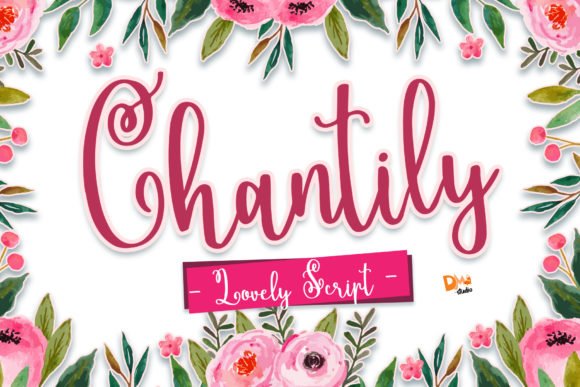
Unleash the Charm of Chantily Font
Have you ever found yourself staring at a blank canvas, waiting for that perfect spark of creativity to strike? For many designers, it’s those moments of inspiration that make all the difference between a good design and a truly exceptional one. And for me, that spark often comes from discovering a new font that perfectly captures the essence of my vision.
Enter Chantily Font, a tall and elegant handwritten font that’s sure to add a touch of whimsy and charm to any design project. Whether you’re working on a wedding invitation, a children’s book, or a lifestyle blog, Chantily Font is the perfect choice for designers who want to create a truly unique and captivating visual experience. With its flowing lines and beautiful curves, Chantily Font is a valuable addition to any designer’s toolkit.
Chantily Font Key Features
- Font Family: Chantily Font
- Unique Characteristics: Elegant, cursive script with a touch of vintage flair, ideal for creative and artistic projects, wedding invitations, and formal events.
Chantily Font Review
Overall, I’d say the Chantily Font is a solid choice for your next design project, especially if you’re aiming for a whimsical or vintage feel. Here’s what I love about it: ✨
- Unique character set: Chantily Font features a wide range of unique characters, from swashes to ligatures, that can add a touch of personality to your designs.
- Historical charm: The font’s vintage aesthetic can evoke a sense of nostalgia and elegance, making it perfect for projects that require a classic feel.
- Customization options: The font offers a range of customization options, including bold and italic styles, that can help you achieve the desired look.
- Limited language support: Chantily Font may not be the best choice for projects that require extensive language support, as its character set is somewhat limited.
- Not ideal for small text: Due to its ornate design, Chantily Font may not be the best choice for small text or body copy, as it can be difficult to read.
Overall, I’d give Chantily Font 4 out of 5 stars. While it has some limitations, its unique character set and customization options make it a great choice for the right project.
Chantily Font is ideal for creating elegant and sophisticated designs. Here are some tips and common use cases:
Use Chantily Font for wedding invitations, luxury branding, and high-end marketing materials.
To get the most out of Chantily Font, use it in conjunction with other elegant fonts and designs, such as cursive scripts and watercolor backgrounds.
Alternatives to Chantily Font
Playfair Display is an elegant and luxurious serif font, ideal for use in titles and headings. It features intricate details and flourishes that make it perfect for high-end designs, such as luxury brand logos and wedding invitations.
Comparison to Chantily Font: While Chantily Font has a softer, more feminine look, Playfair Display is more dramatic and eye-catching. Playfair Display is suitable for designs that require a touch of sophistication and elegance.
Great Vibes is a modern and elegant script font, perfect for use in titles and headings. It features a flowing, handwritten feel that makes it ideal for designs that require a personal and creative touch.
Comparison to Chantily Font: While Chantily Font has a more formal look, Great Vibes is more casual and relaxed. Great Vibes is suitable for designs that require a friendly and approachable tone.
Didot is a classic and elegant serif font, ideal for use in titles and headings. It features a refined and sophisticated look that makes it perfect for high-end designs, such as luxury brand logos and art prints.